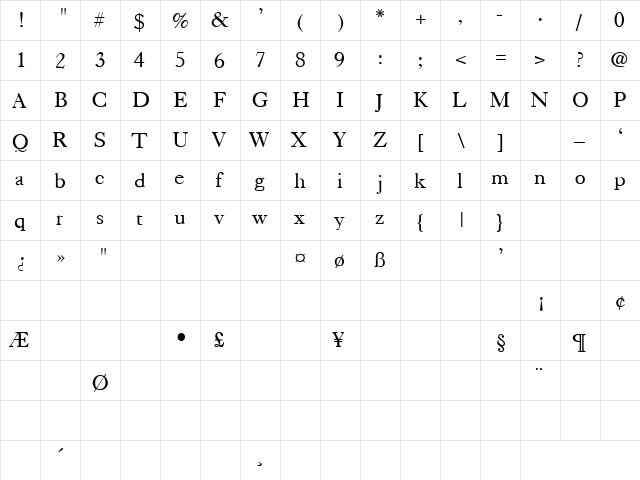
Sick As A Dog 7 Regular
Sick As A Dog 7 is a composed and adaptable typeface that performs quietly and consistently across a wide range of design contexts.